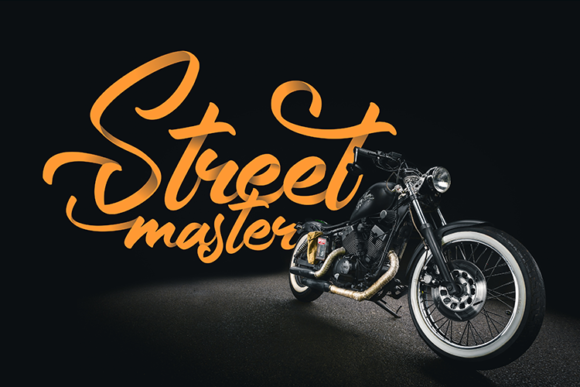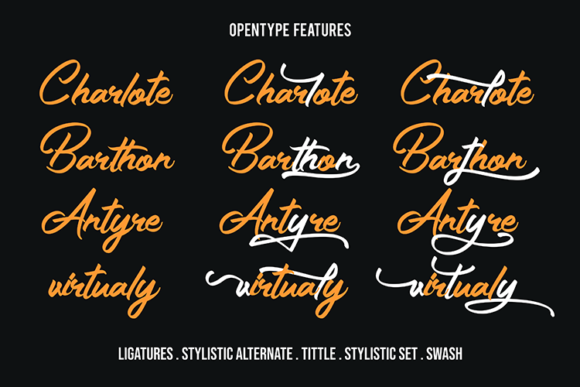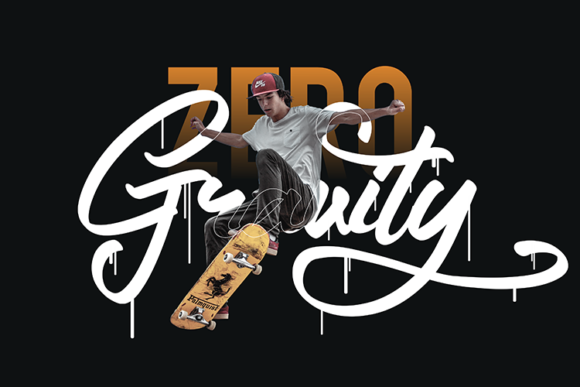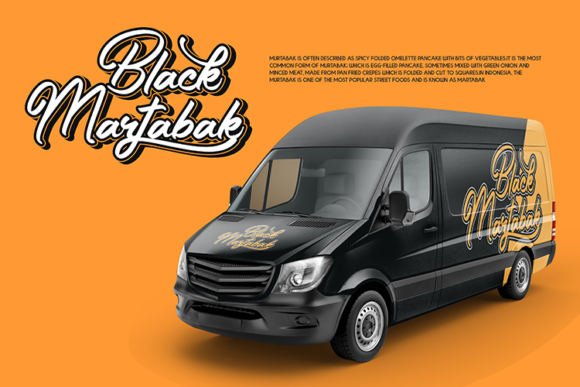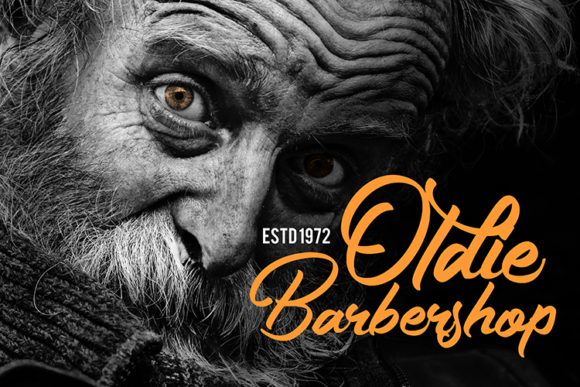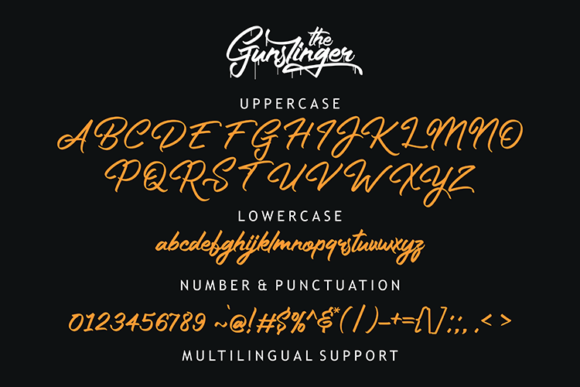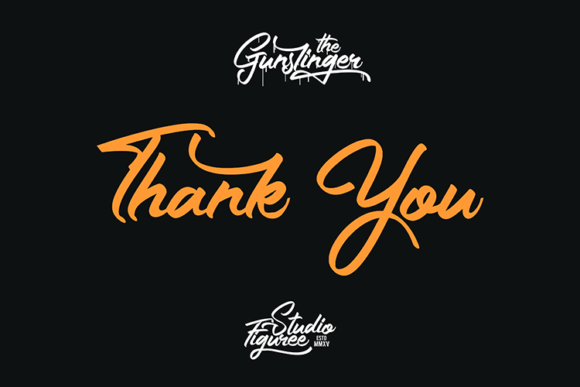
The Gunslinger Font
About The Gunslinger Font
The Gunslinger is a natural bold script, inspired by a vintage aesthetic. Made in combination with hand lettering, it comes with dramatic movement and it’s great for any next creative project that needs a retro vibe.